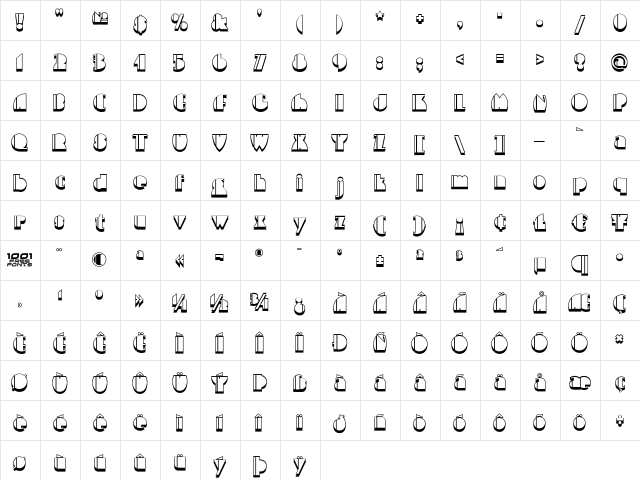
High Five Jive NF Regular
| Foundry | Nick's Fonts |
| Designer | Nick Curtis |
Design Context for High Five Jive NF Typeface
High Five Jive NF is a composed and adaptable typeface that performs quietly and consistently across a wide range of design contexts.